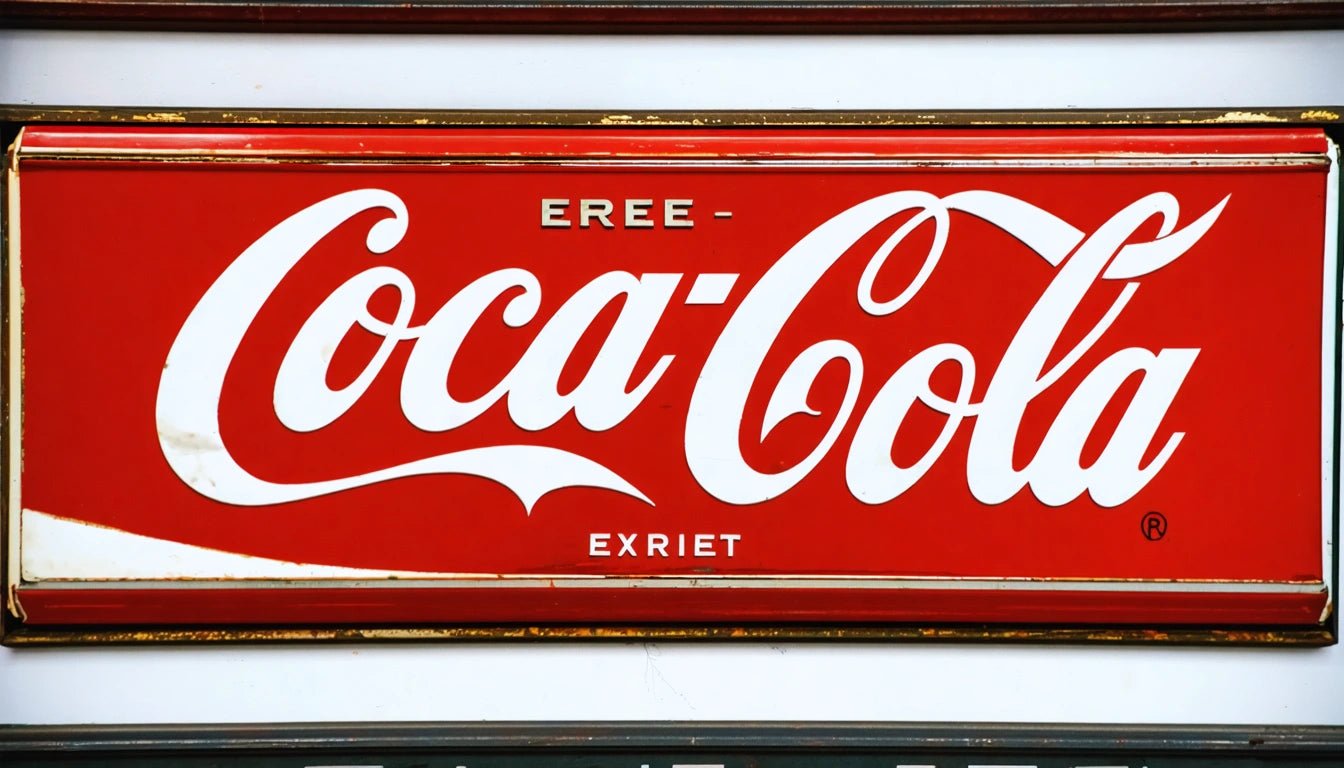
The Evolution and History of the Coca-Cola Logo: Colors, Fonts, and More
Few brand symbols are as instantly recognizable worldwide as the flowing script of the Coca-Cola logo. Since its creation in 1886, the Coca-Cola logo has undergone subtle yet significant transformations while maintaining its core identity. This iconic emblem represents not just a beverage but a cultural phenomenon that has shaped advertising and brand recognition for over a century.
Origins of the Coca-Cola Logo: From Bookkeeper's Script to Global Icon
The story of the Coca-Cola logo begins with pharmacist John Pemberton, who created the beverage in 1886. However, it was his bookkeeper, Frank Mason Robinson, who suggested the distinctive flowing script that would become one of the most recognizable logos in history. Robinson, believing that two Cs would look good in advertising, penned the logo in Spencerian script, a popular writing style at the time used primarily for business correspondence.
This initial version of the logo was far simpler than what we recognize today, but it contained the essential DNA of what would evolve into a global icon. The first Coca-Cola logo history shows how this humble beginning set the foundation for over a century of brand identity.
Coca-Cola Logo Evolution Through the Decades
Early Modifications (1890s-1900s)
By the 1890s, the logo began to take on more decorative elements. The tail of the first "C" started to extend, eventually swooping under the rest of the text. During this period, the company experimented with various embellishments, including adding the words "Drink" before and "Delicious and Refreshing" after the main logo.
Mid-Century Refinements (1941-1960s)
The 1941 version of the logo introduced the "fish tail" design, with the product name enclosed in a red rectangle with curved edges resembling a fish tail. This design element would appear and disappear over the decades. The 1950s and 60s saw the logo become more streamlined, with unnecessary decorative elements gradually being removed.
Modern Era Adaptations (1980s-Present)
In the 1980s and 90s, the logo underwent subtle refinements for better reproduction across various media. The latest innovations in digital technology allowed for more precise control over the logo's appearance across all platforms.
Throughout these changes, what's remarkable about the evolution of Coca-Cola's brand identity is how consistent the core logo has remained despite numerous marketing campaigns and packaging redesigns.
Colors and Visual Elements: The Red and White Legacy
Contrary to popular belief, Coca-Cola's original color wasn't red. The earliest advertisements featured the logo in black and white, as was common for newspaper ads of the era. It wasn't until the early 20th century that the iconic red color became firmly associated with the brand.
The Red Evolution
The specific shade of red has been standardized over time, now known officially as "Coca-Cola Red" (Pantone 484). This vibrant red became a crucial part of the brand's identity, especially when paired with the contrasting white script. The coca cola logo over the years shows a consistent commitment to this color scheme, with only minor variations for special editions or campaigns.
The Dynamic Ribbon
In 1969, the "Dynamic Ribbon" or "Wave" was introduced as a graphic element accompanying the script logo. This red and white wave design added movement and energy to the brand's visual identity and has remained an important element in Coca-Cola's overall design language.
The Spencerian Script: Coca-Cola's Distinctive Font
What font does Coca-Cola use? The answer lies in the 19th century. The distinctive flowing script is based on a form of penmanship called Spencerian script, which was the dominant form of handwriting taught in America from the 1850s to the 1920s. However, the Coca-Cola logo isn't simply a standard font but a custom-designed wordmark.
Over time, the script has been refined and standardized, but it maintains the handwritten quality that gives it warmth and personality. This distinctive script has become so iconic that even a small portion of a letter is often enough for consumers to identify the brand.
The company has zealously protected its typography, recognizing that the unique script is central to its brand equity. While many companies have moved toward simpler, more minimalist logos, Coca-Cola has maintained its complex script, demonstrating that distinctiveness can be more valuable than simplicity in certain cases.
Packaging Innovations and Logo Applications
The relationship between the Coca-Cola logo and its packaging represents one of the most successful marriages of brand and container in business history. From the distinctive contour bottle introduced in 1915 to modern aluminum cans, the logo has been adapted to various surfaces while maintaining its integrity.
Safety considerations have also influenced packaging design across the beverage industry. While not directly related to Coca-Cola, it's worth noting that many industries have adopted specialized safety measures in their packaging to protect consumers, particularly children, showing how packaging considerations extend beyond mere aesthetics to include practical safety concerns.
The logo's application across different packaging formats demonstrates its versatility, from the curved surface of bottles to the flat space on cans, from vending machines to fountain dispensers.
Brand Consistency and Future Directions in Logo Design
What makes the Coca-Cola logo particularly remarkable is its longevity. While brands like Starbucks have significantly altered their logos over time, Coca-Cola has maintained extraordinary consistency. This approach has created unparalleled brand recognition, with the logo recognizable to an estimated 94% of the world's population.
Looking forward, Coca-Cola continues to balance tradition with innovation. Limited-edition variations and market-specific adaptations allow for freshness while preserving the core identity. The company's approach to logo evolution provides valuable lessons for other brands:
- Change should be evolutionary, not revolutionary
- Core visual elements should remain consistent
- Adaptations should respect brand heritage
- Digital applications require careful consideration of legibility and scalability
As digital interfaces continue to evolve and new marketing channels emerge, the Coca-Cola logo will likely continue its gradual refinement while maintaining the essential character that has made it one of the world's most valuable brand assets.
The history of the Coca-Cola logo demonstrates that successful brand identities aren't created overnight but are built through consistent application, thoughtful evolution, and unwavering commitment to core visual principles over decades.